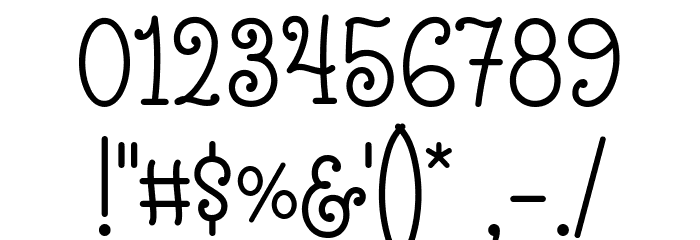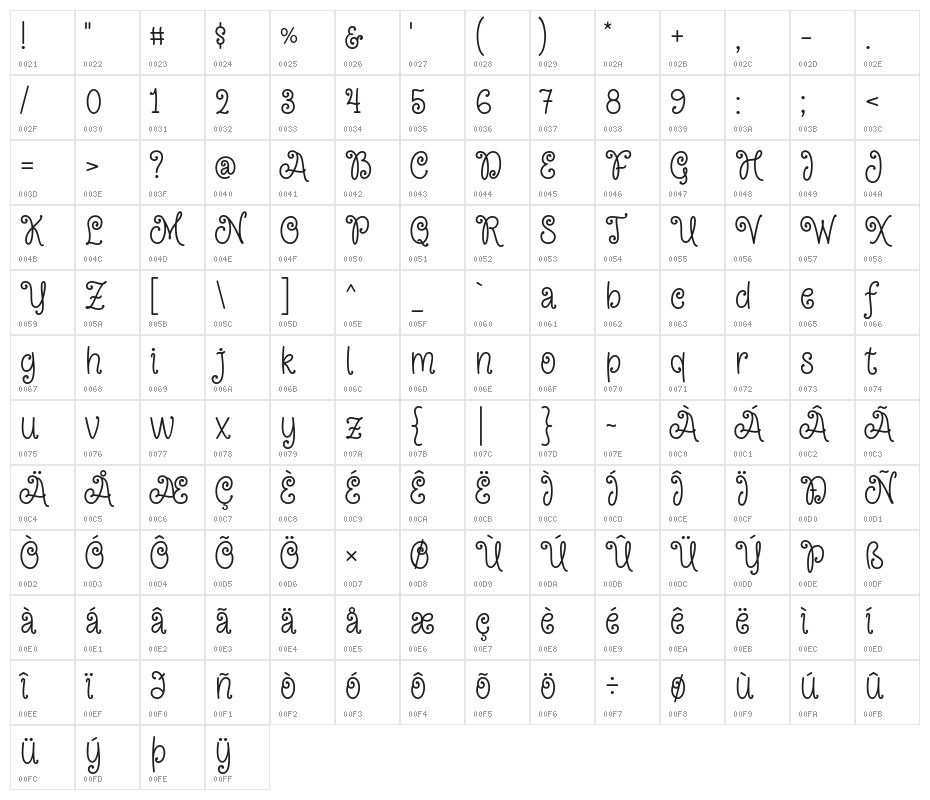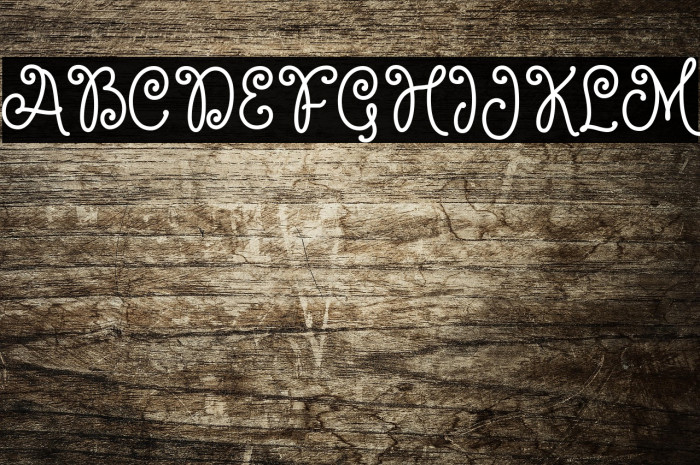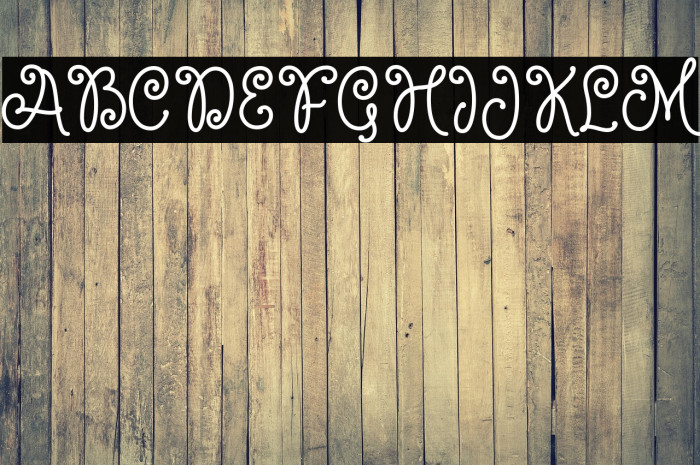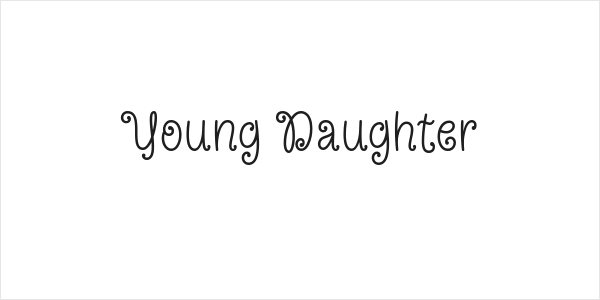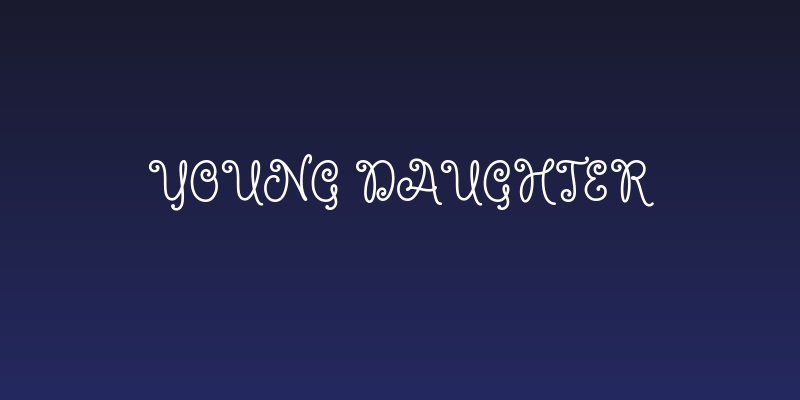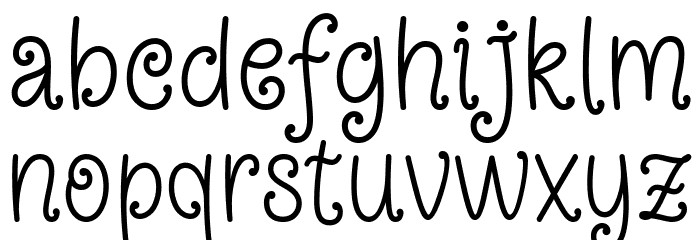
Young Daughter Font
Young Daughter Description
This playful and whimsical font features a unique blend of curls and loops, giving it a lively and energetic appearance. The uppercase letters are adorned with decorative swirls, while the lowercase letters maintain a more subtle yet equally charming style. The numerals and special characters follow suit, incorporating the same playful elements. This font's design is both approachable and fun, making it ideal for projects that aim to convey a sense of joy and creativity.
| Proposed Projects | Ideal for children's books, playful branding, greeting cards, and creative invitations. |